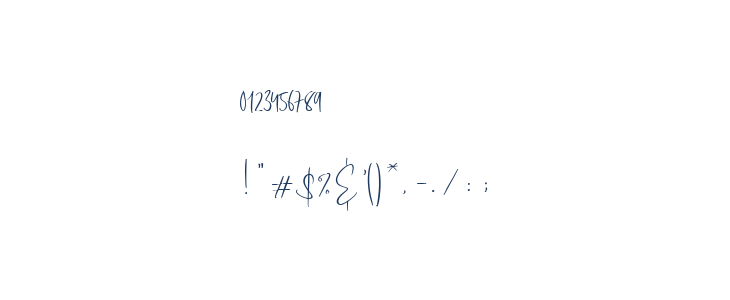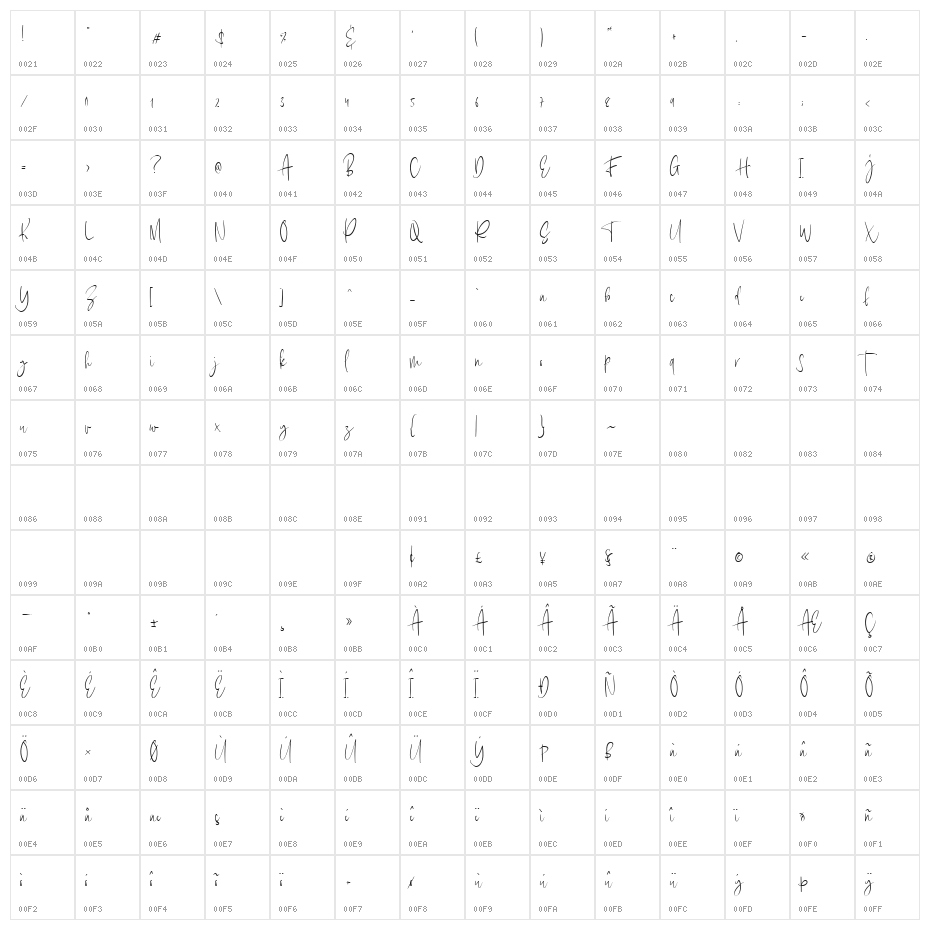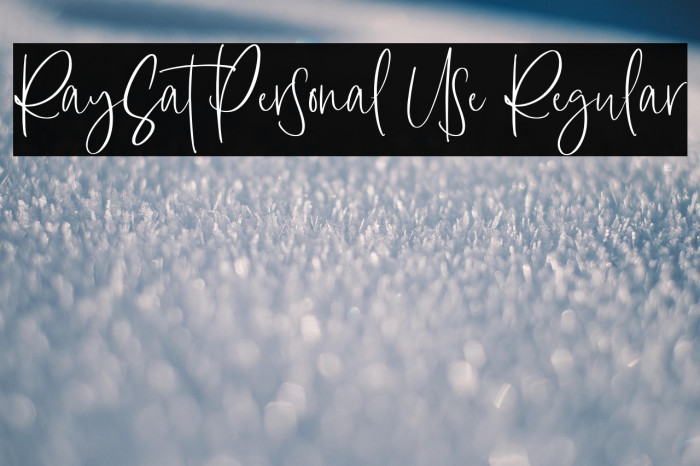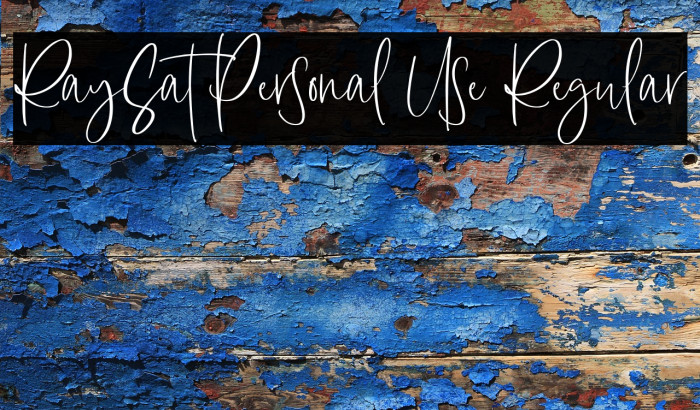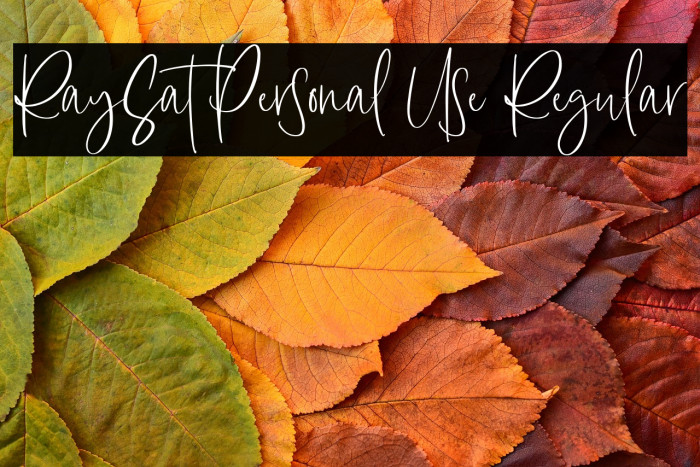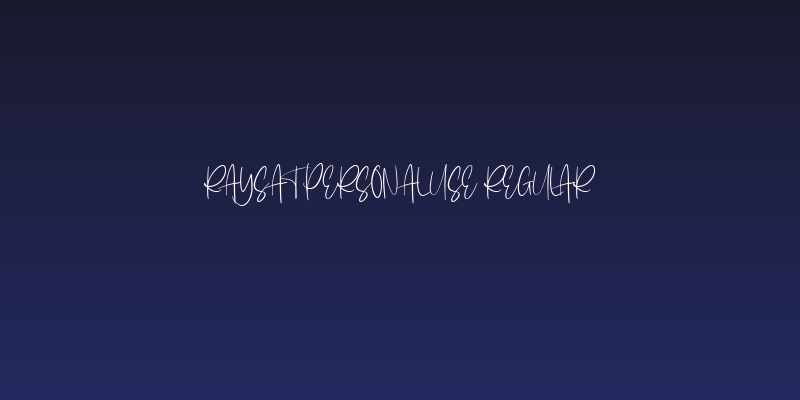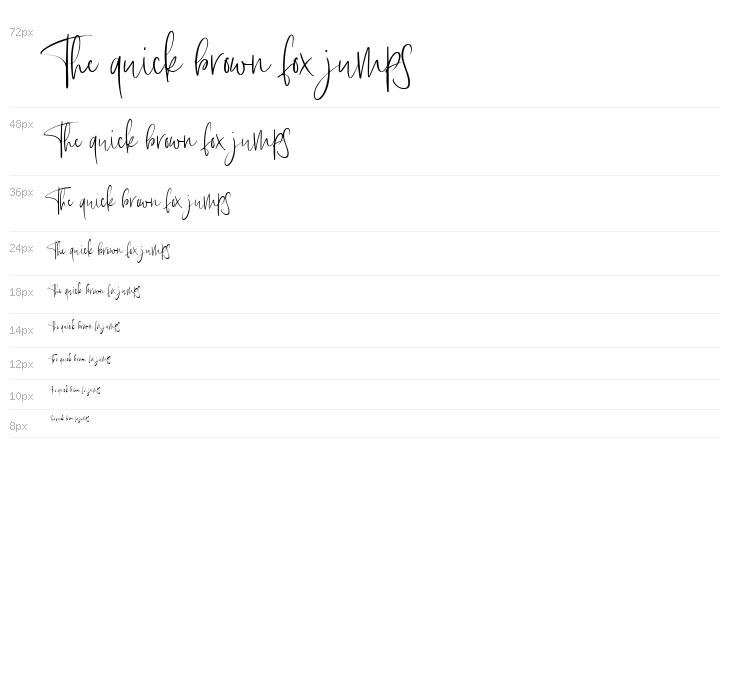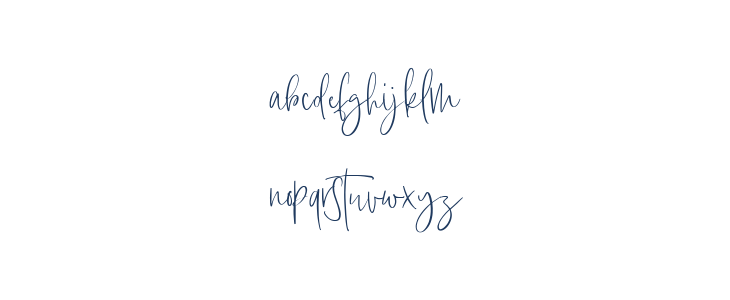
RaySat Personal Use Regular Font
RaySat Personal Use Regular Description
This font features a lively and expressive handwritten style, characterized by its fluid and dynamic strokes. The uppercase letters are bold and sweeping, with a playful yet elegant flair. The lowercase letters maintain a consistent flow, offering a harmonious blend of curves and lines. Numbers and special characters are crafted with the same attention to detail, ensuring a cohesive appearance across all glyphs. The overall design exudes a sense of creativity and spontaneity, making it ideal for projects that require a personal touch. Its unique style is both modern and timeless, suitable for a variety of design applications.